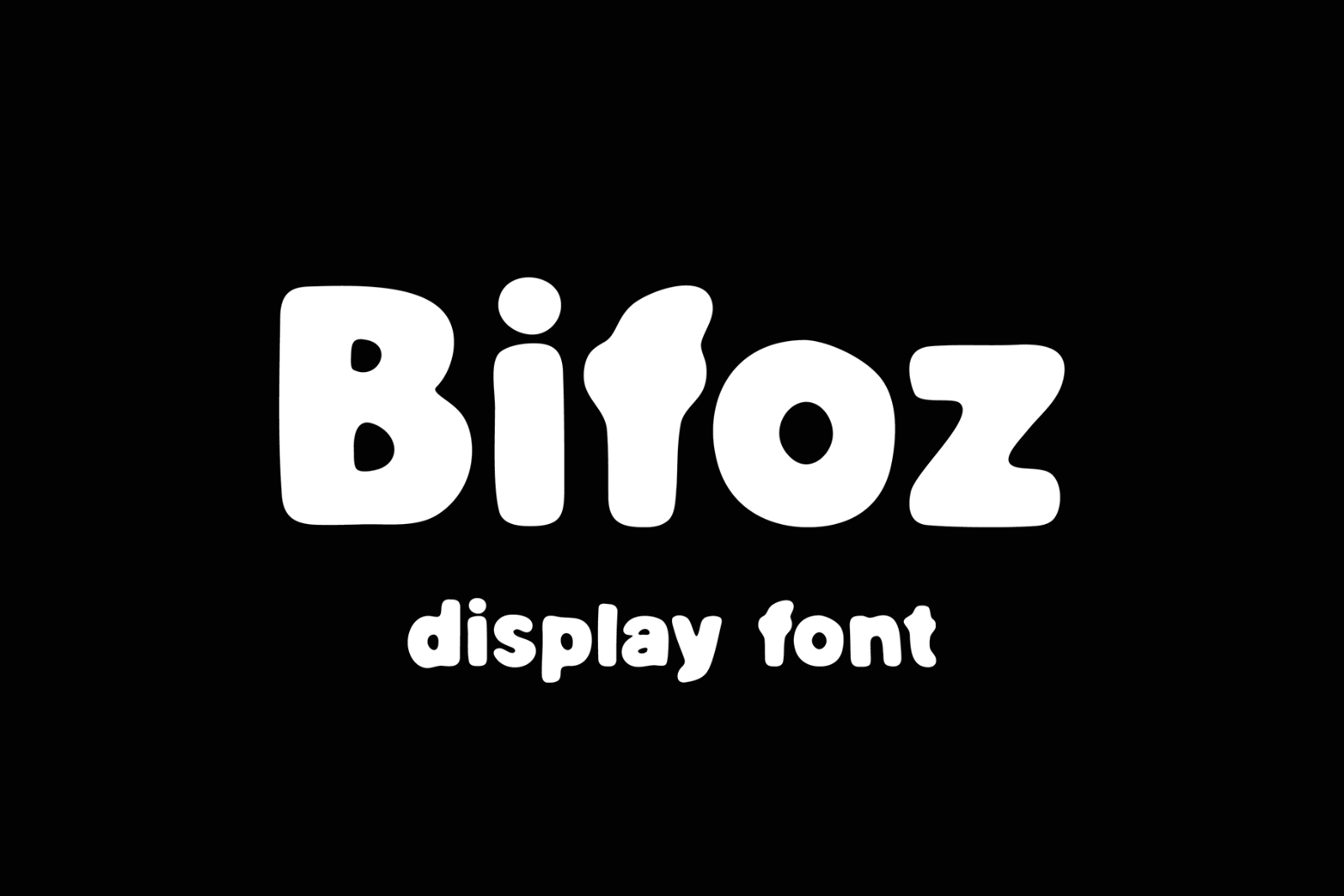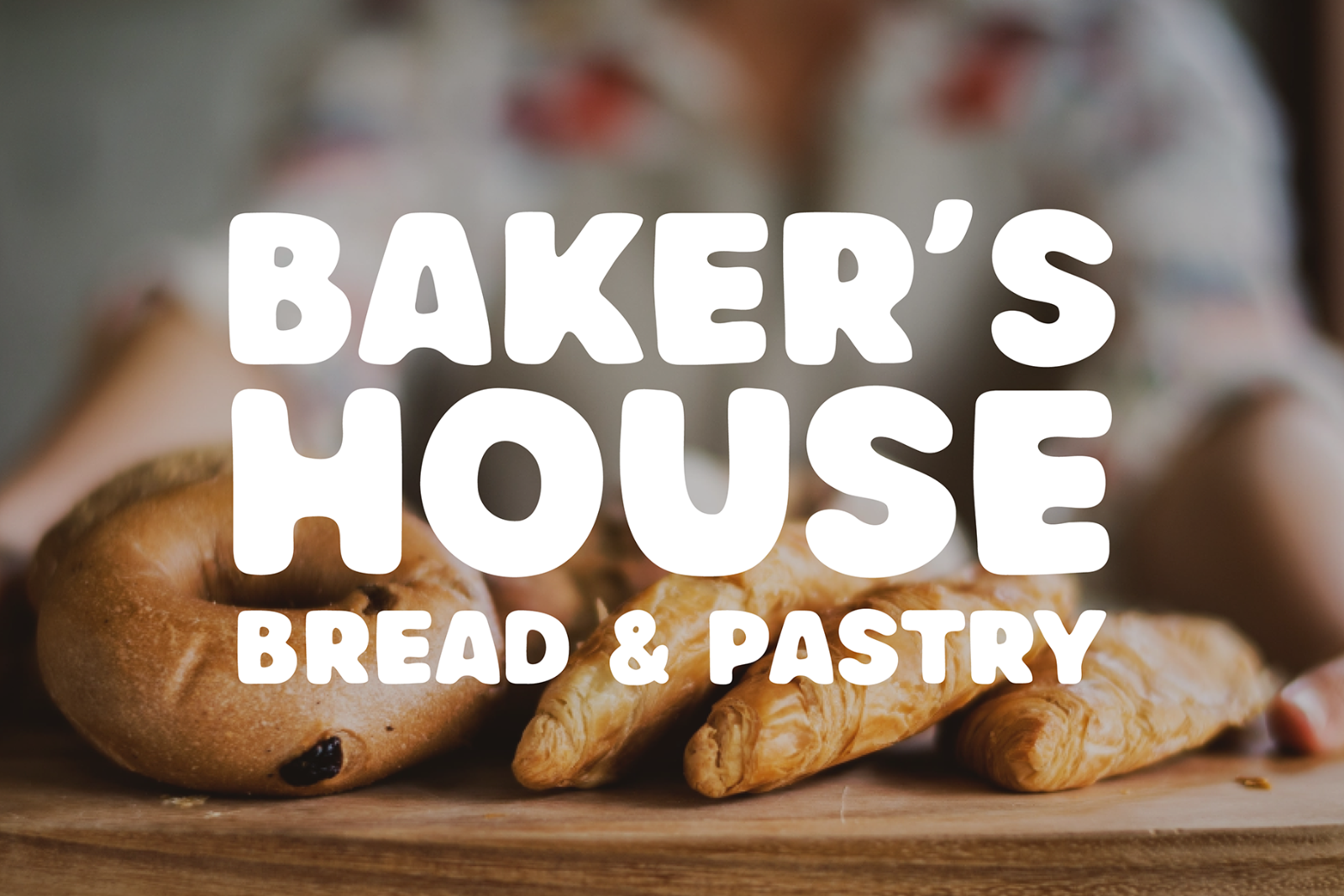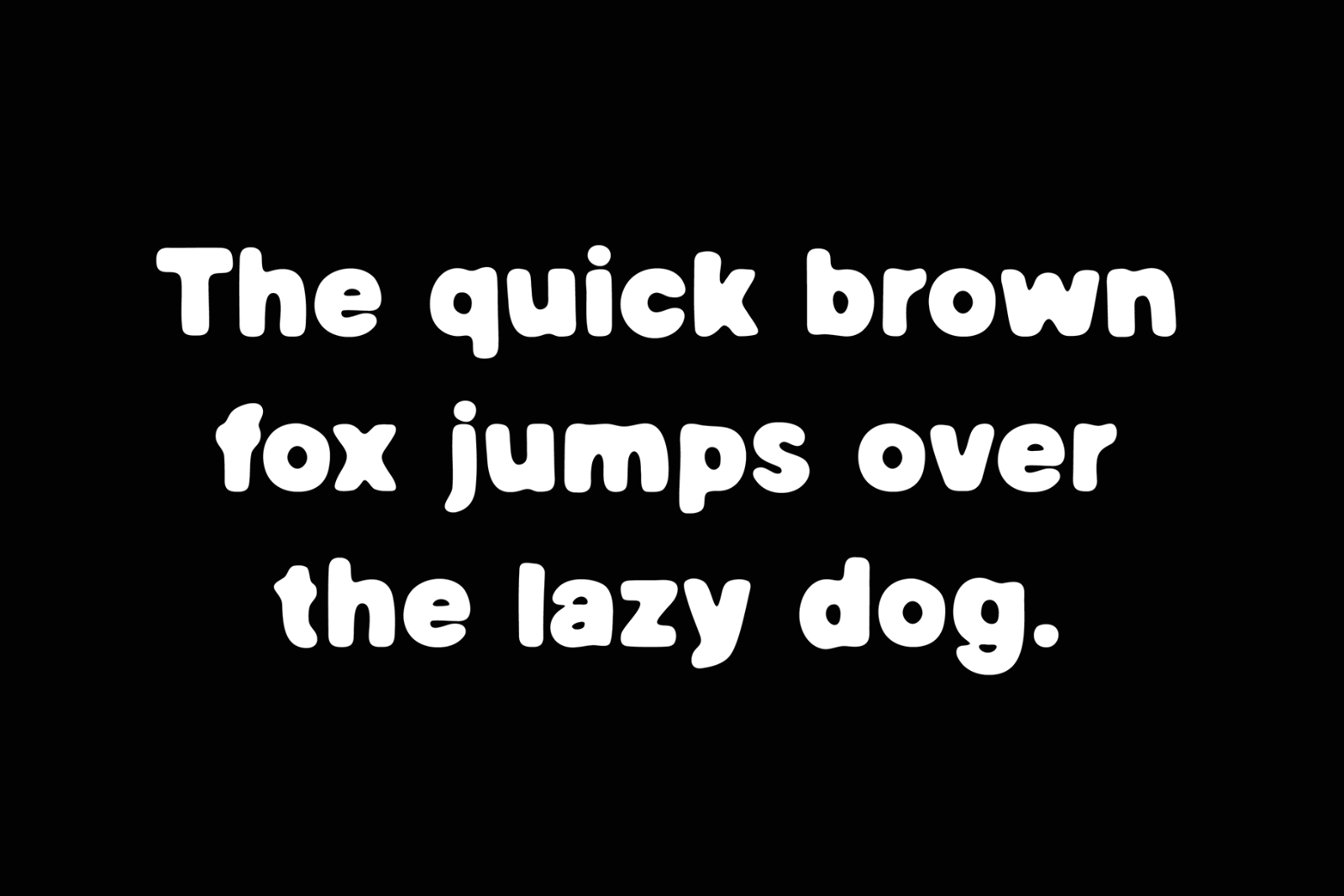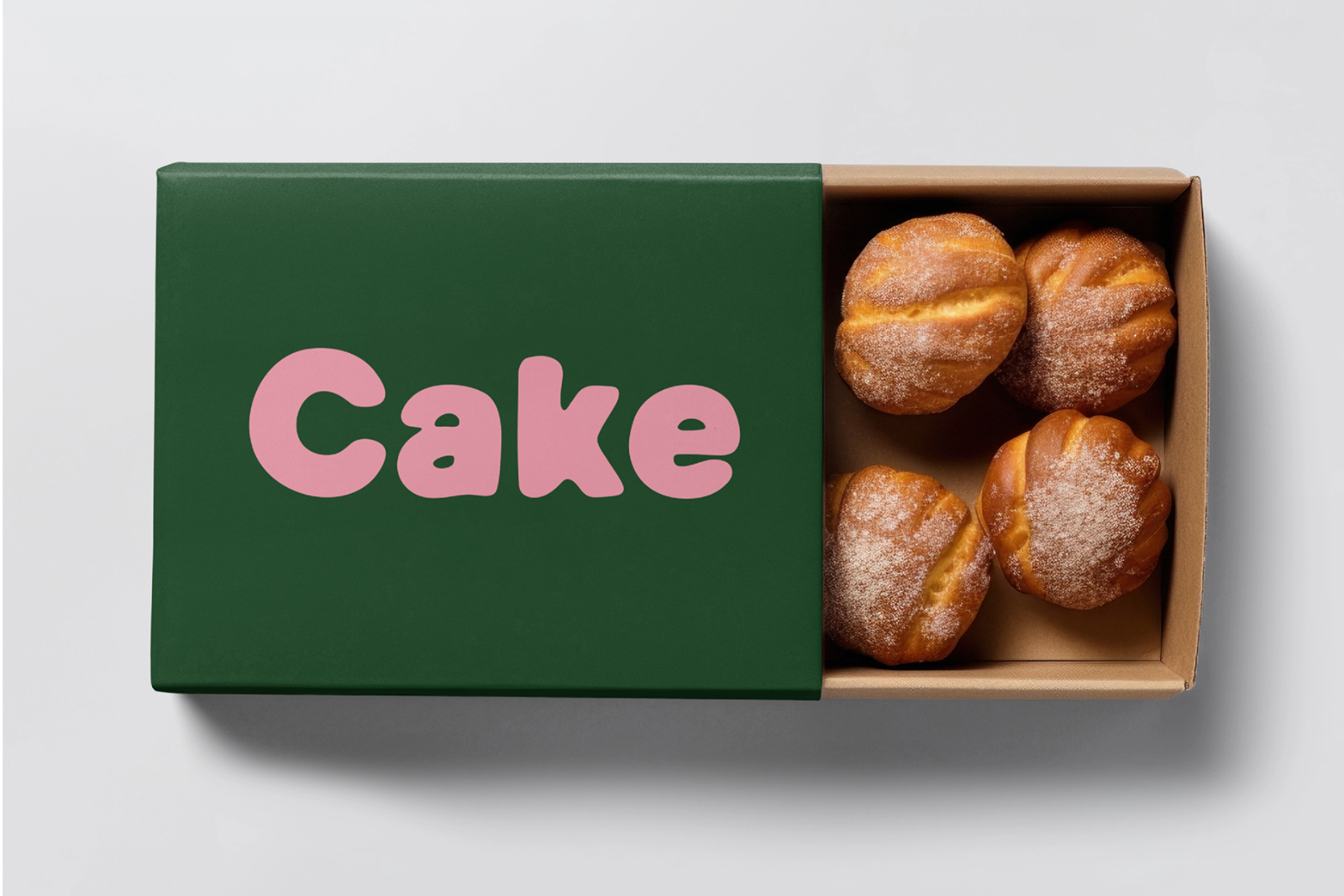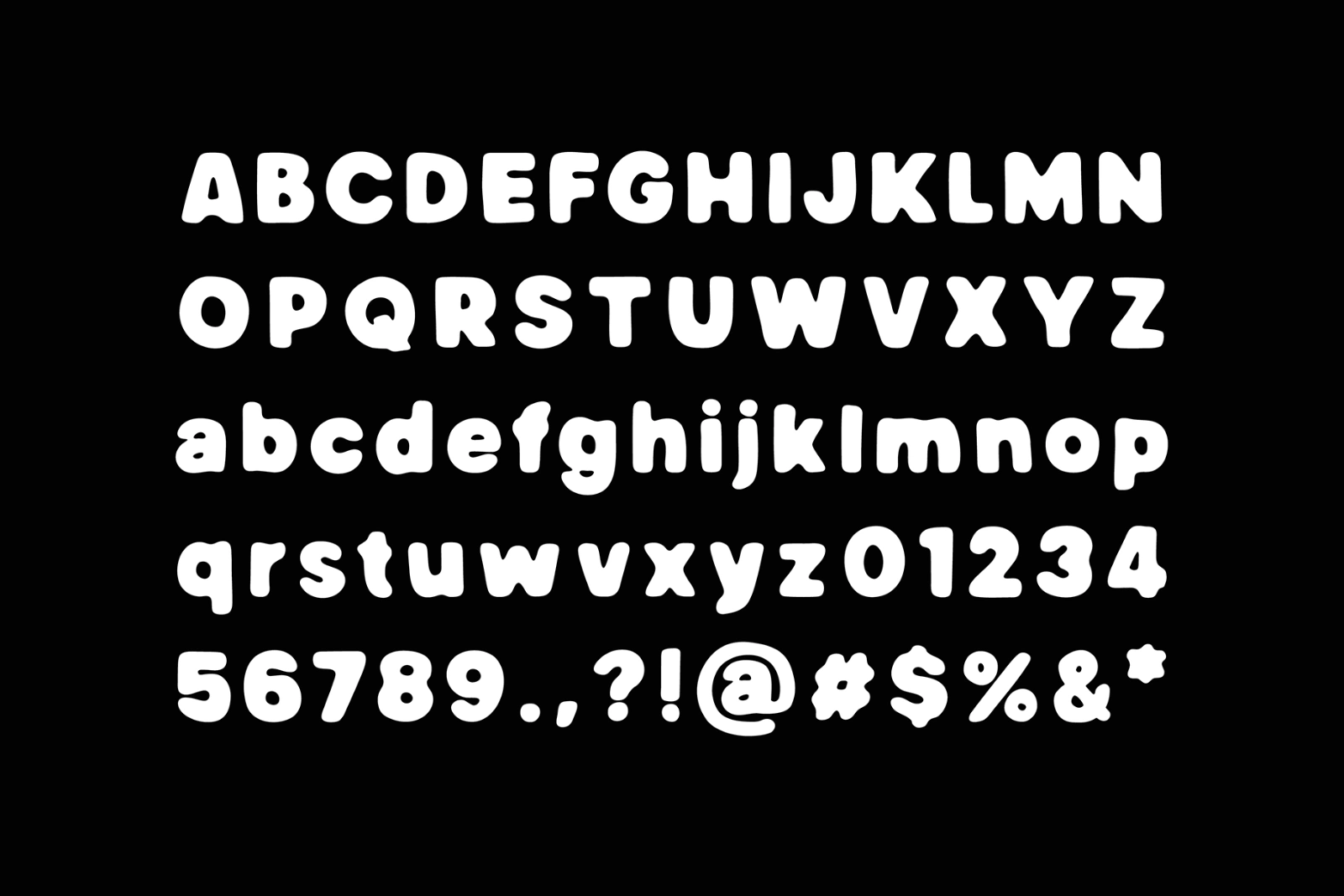
Bifoz is a simplified font, distinguished by its bold structure and rounded corners. Bifoz Display font is ideal for graphic designs with an intriguing style. The font will work well in poster design, branding, logo design and clothing branding.